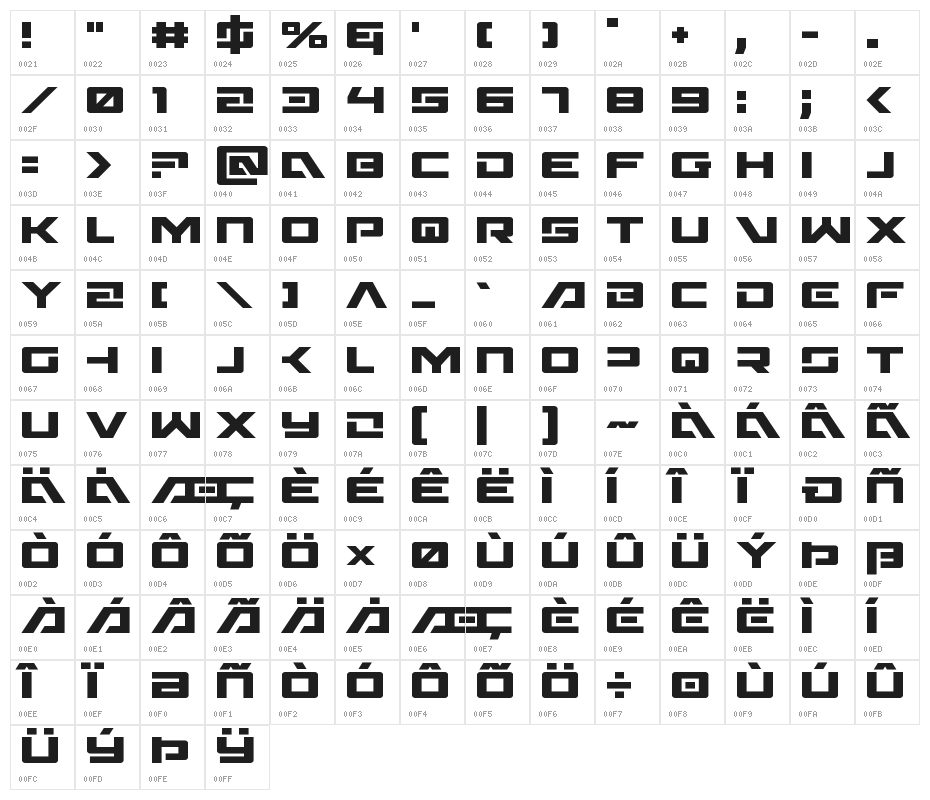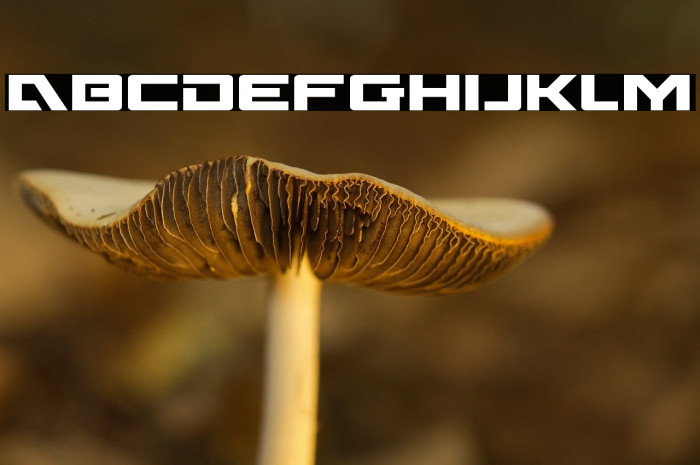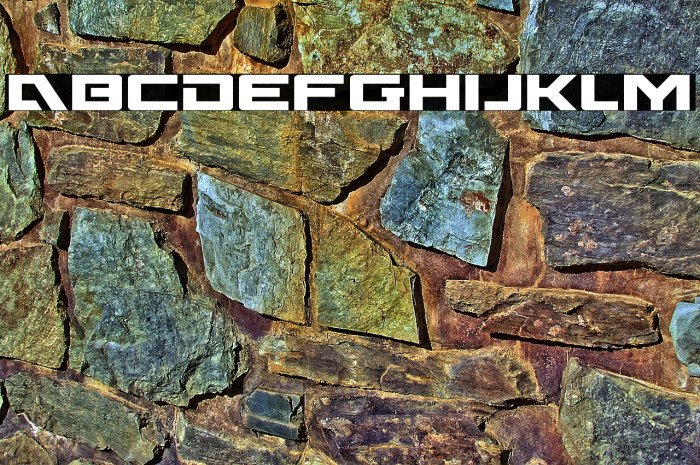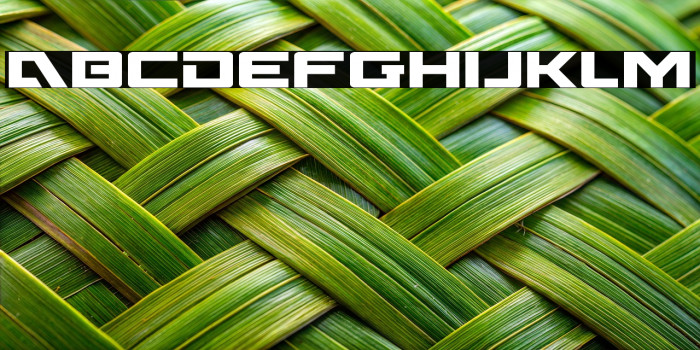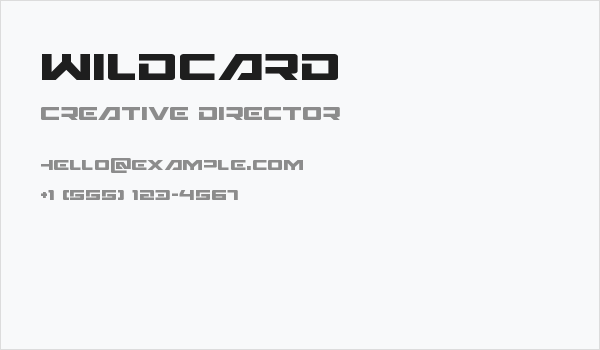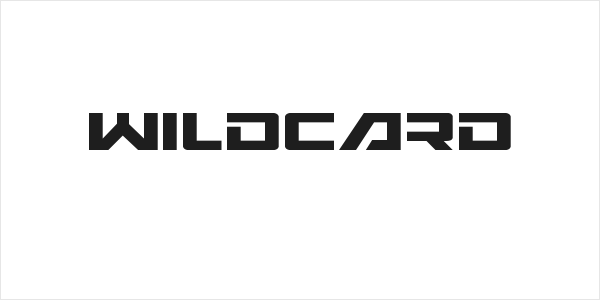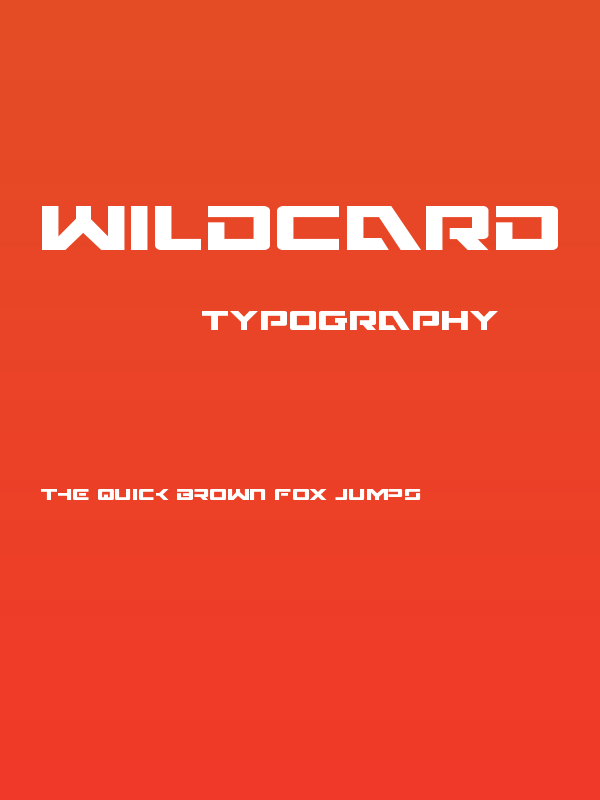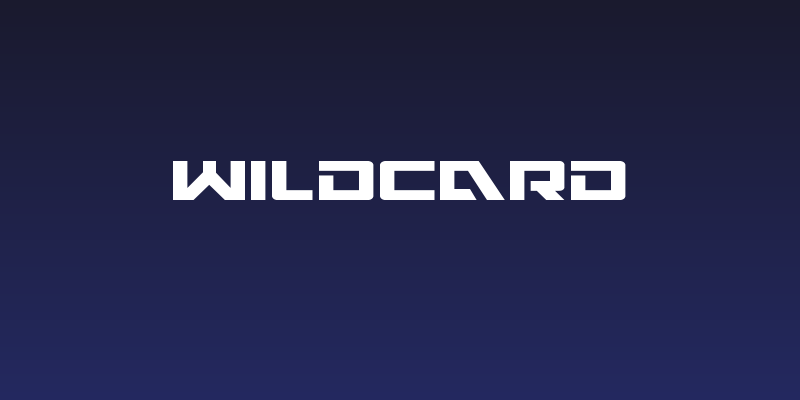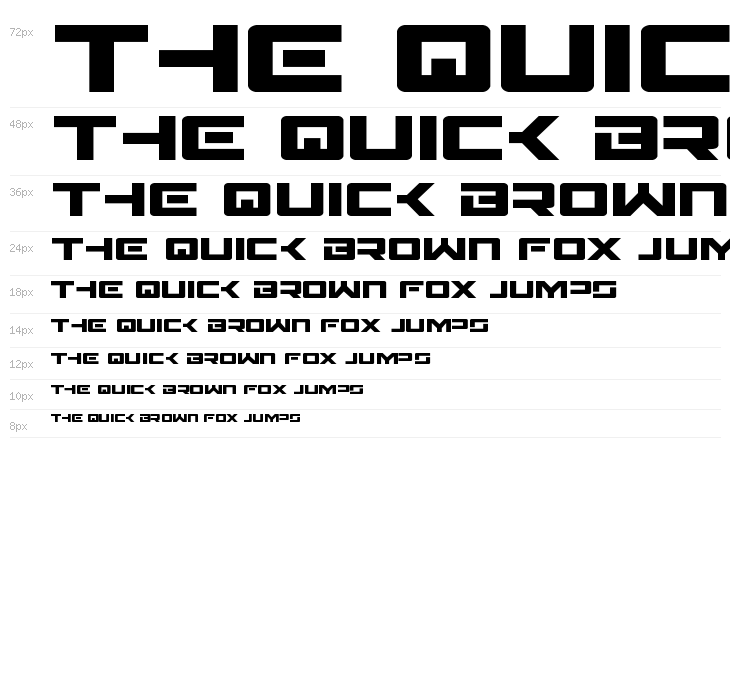
Wildcard Font
Wildcard Description
This font features a bold, geometric design with a futuristic and tech-inspired aesthetic. The characters are constructed with sharp angles and straight lines, giving them a blocky and robust appearance. The uppercase letters are uniform in height, while the lowercase letters maintain a consistent style, enhancing the font's cohesive look. The numerals and special characters follow the same design principles, ensuring a seamless integration across all text elements. The font's strong visual impact makes it suitable for projects that require a modern and dynamic feel.
| Proposed Projects | Ideal for technology branding, video game titles, sci-fi movie posters, and modern digital interfaces. |